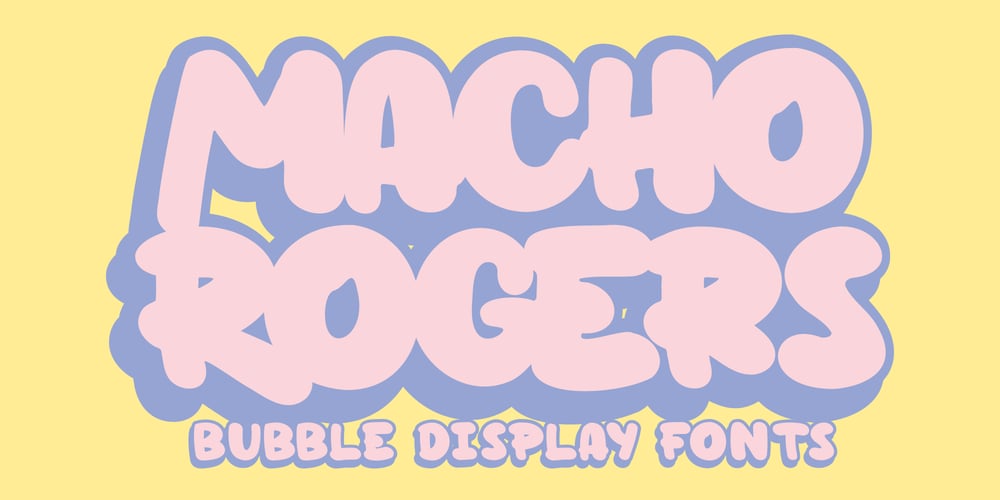
Macho Rogers Font Family was designed by Stefie Justprince and published by Crumphand. Macho Rogers contains 4 styles and family package options. Introducing the new font, Mighty Rogers.Mighty Rogers is a bubble font.If you tracking this font, this font looks like a graffiti.Match for your business food, drink, branding design, typography, video motion etc.Whats Included Inside The Fonts ?UppercaseLowercaseSymbolsNumeralsEuropean MultilingualThank You, Regards.